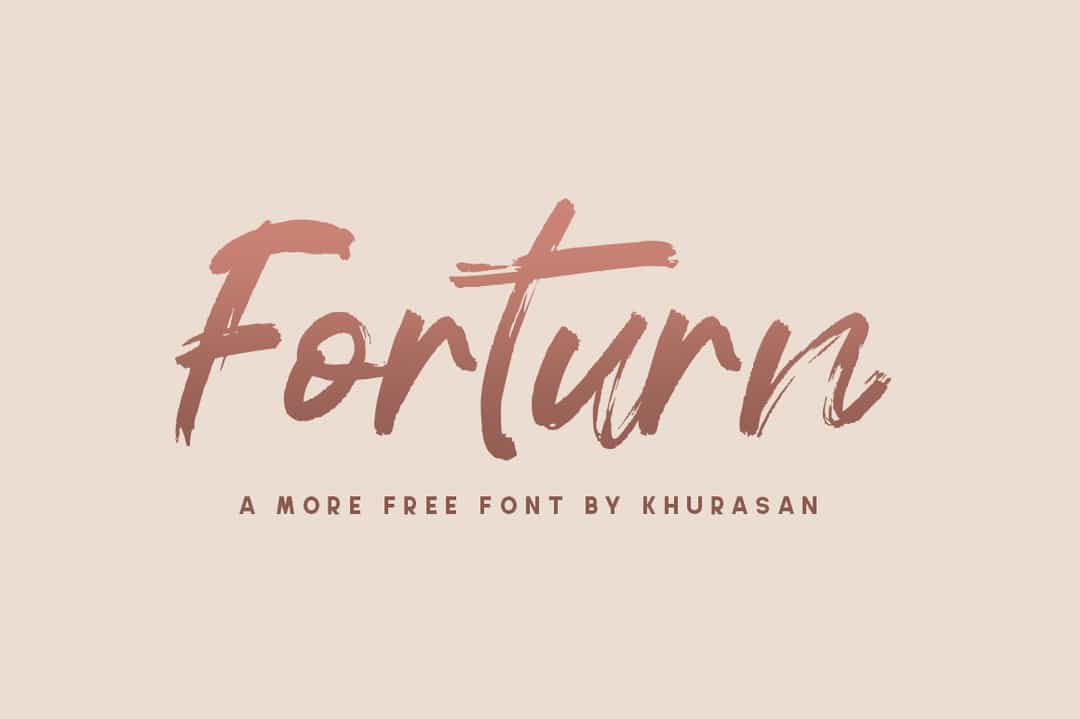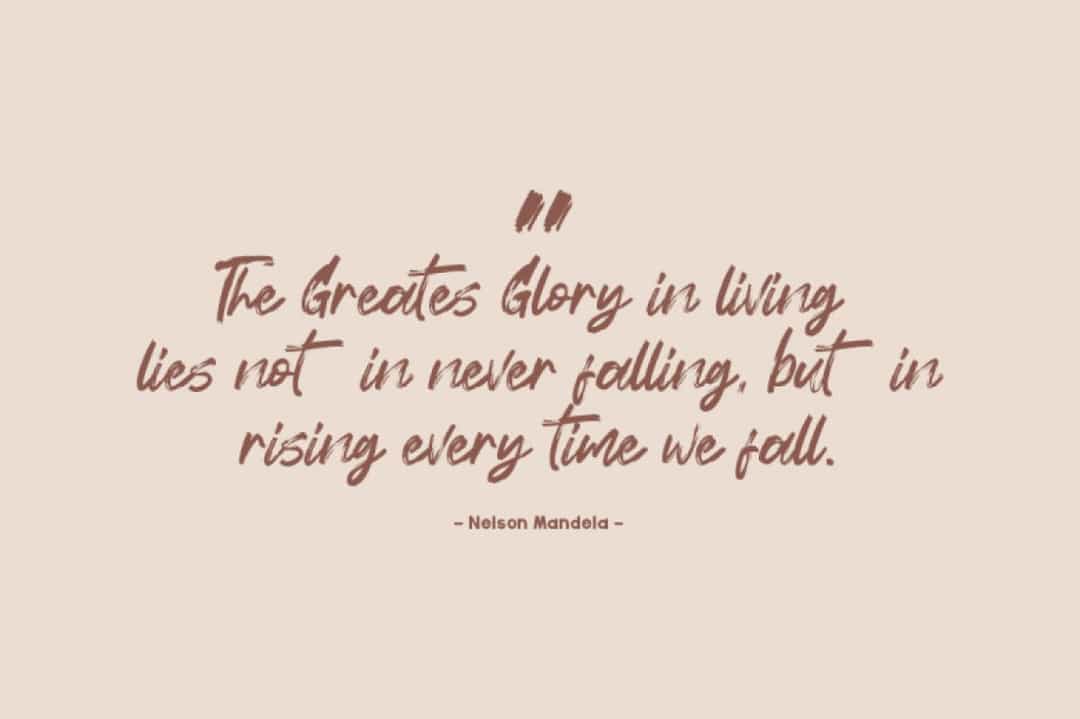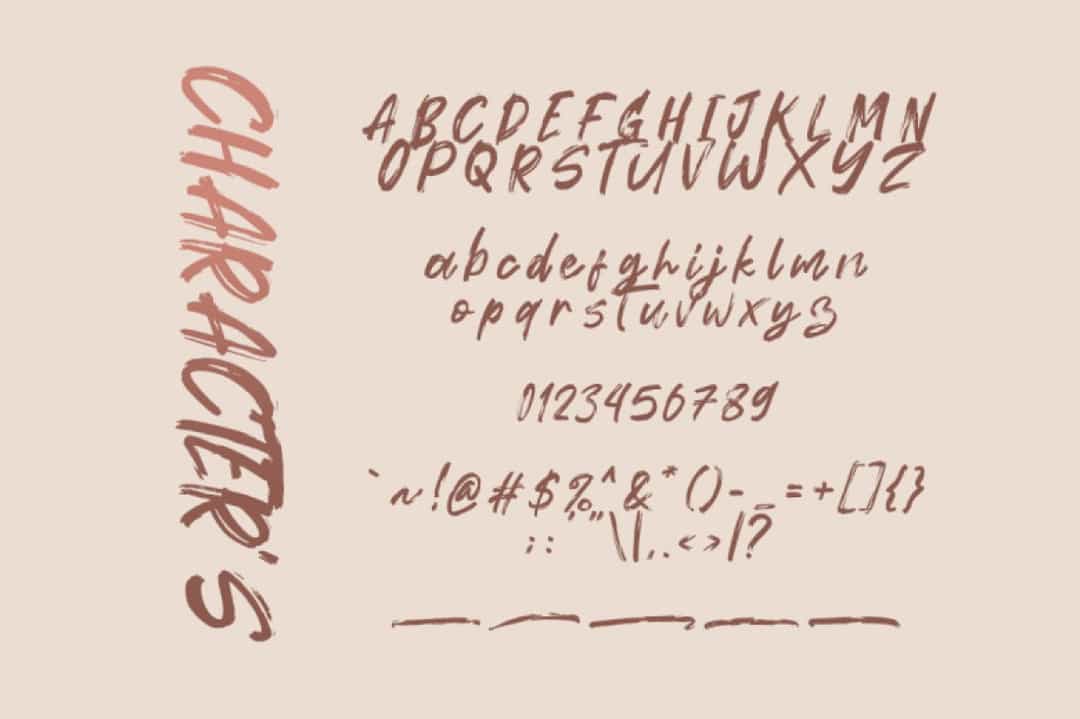
Discover Forturn Font, part of the Brush collection—a versatile and unique font perfect for adding a personal touch to your projects. Download it for free and enjoy crafting designs with style, from invitations to social media posts. This font is available exclusively for personal use, giving you the freedom to create without limits. Unlock your creativity with Forturn Font today!
Forturn is an elegant brush typeface and professional font. Perfect for advertising campaigns or logos with elegant flair; take advantage of this freebie and create beautiful designs!